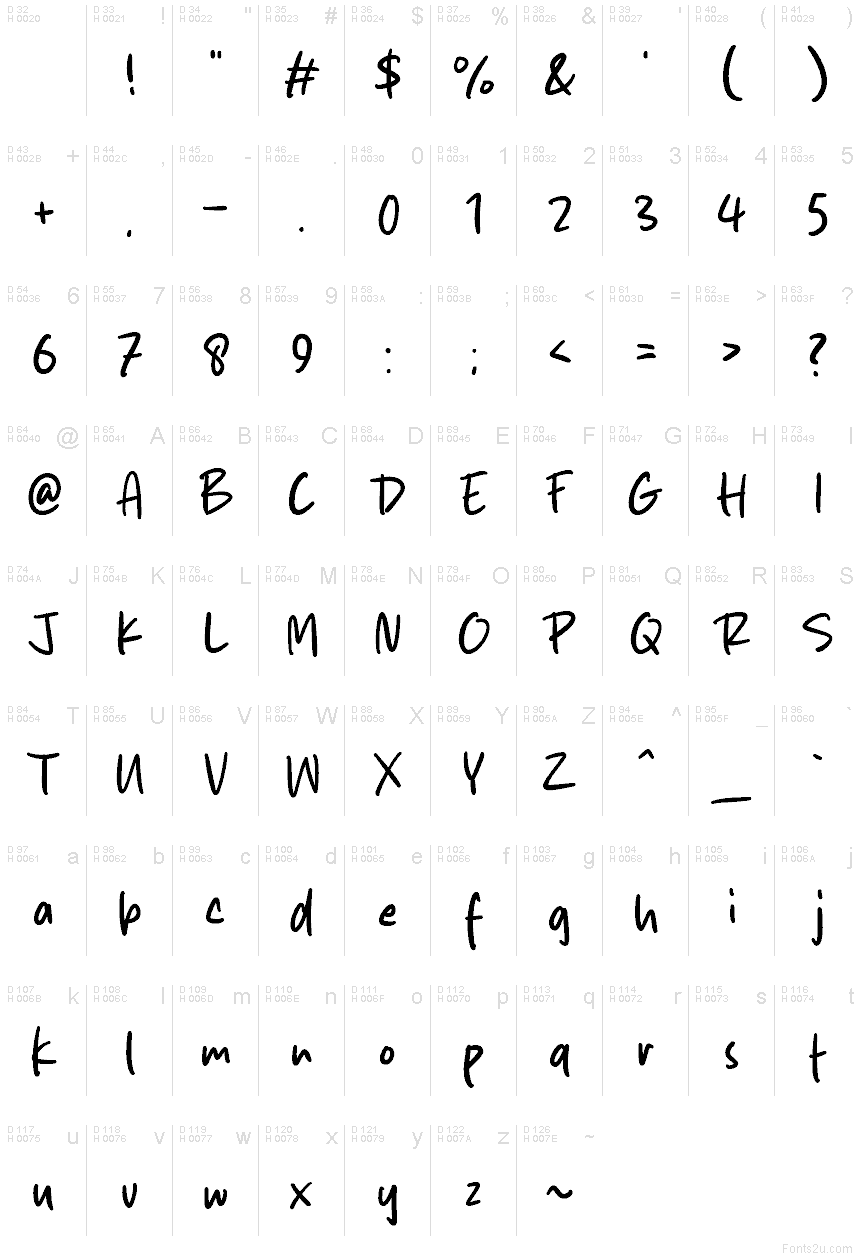
Simple Routine
Simple Routine font by MJType is a free handwritten font that fixes a common headache: getting genuine, inky character without sacrificing readability. Strokes feel brush‑penned—soft wedges at the ends, a quick bounce in the baseline, and just enough pressure contrast to look human. Letters breathe with roomy spacing, so headlines pop and short lines scan fast on screens.
Using Simple Routine, your brand notes, social quotes, product packaging, sticker labels, event posters, and YouTube thumbnails gain an easygoing, friendly voice. This free font shines on short copy and punchy titles; keep it big for texture, then pair with a clean geometric sans for body text to keep layouts crisp and balanced.